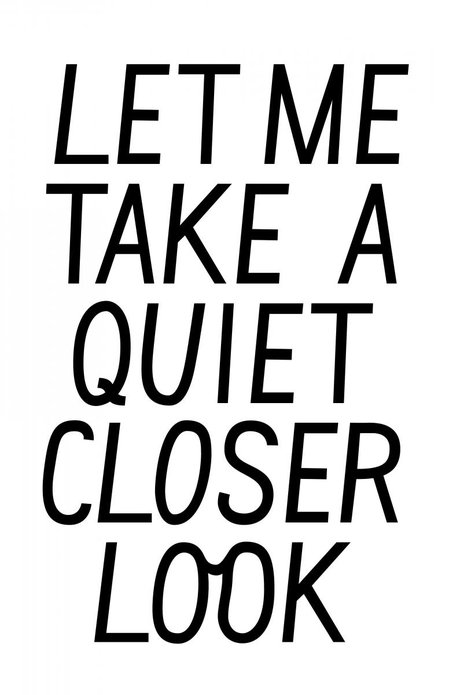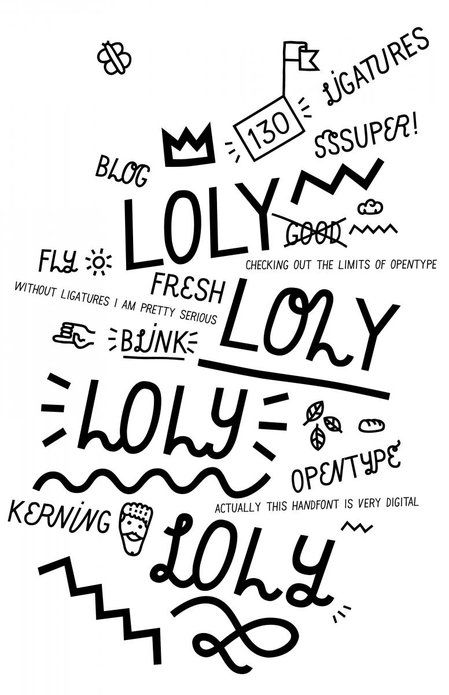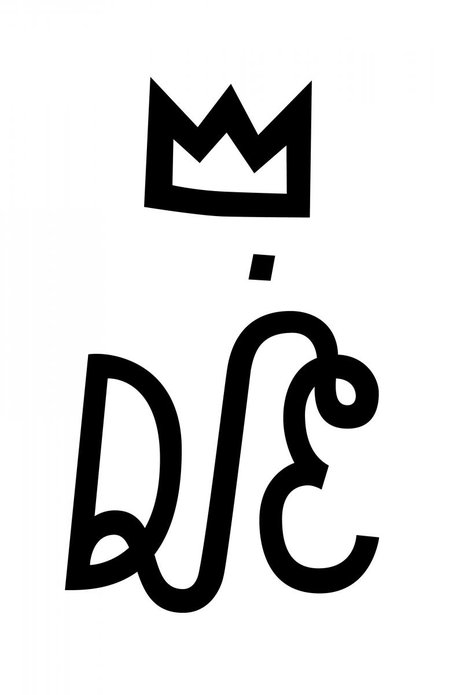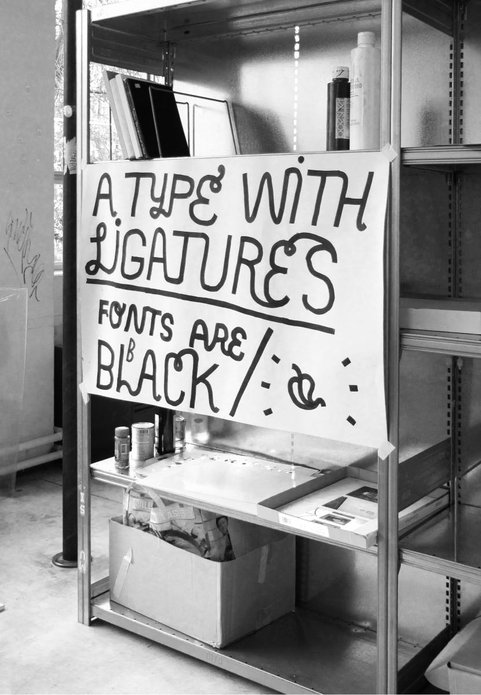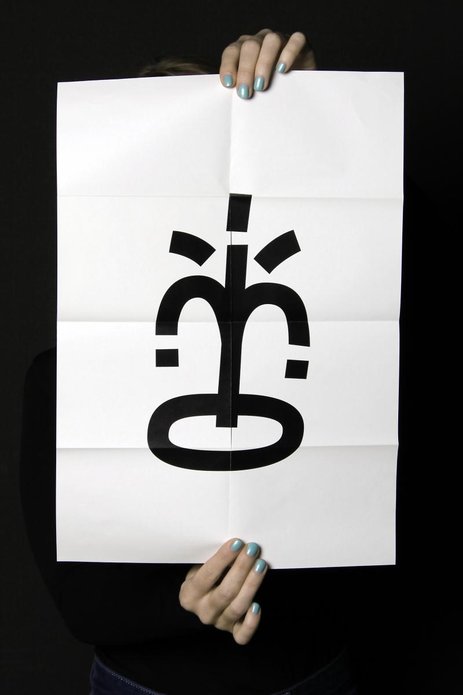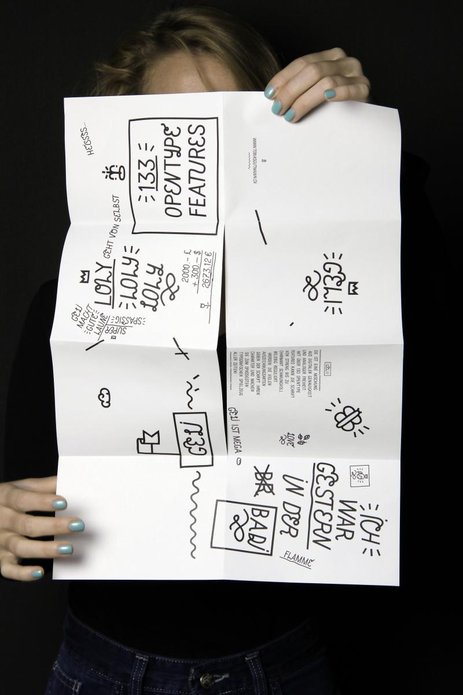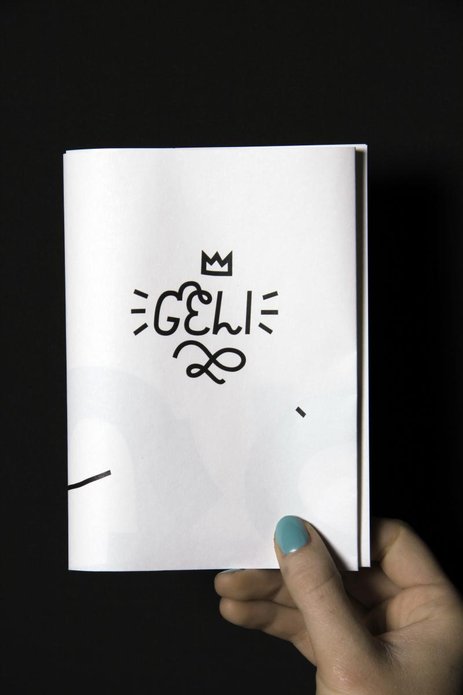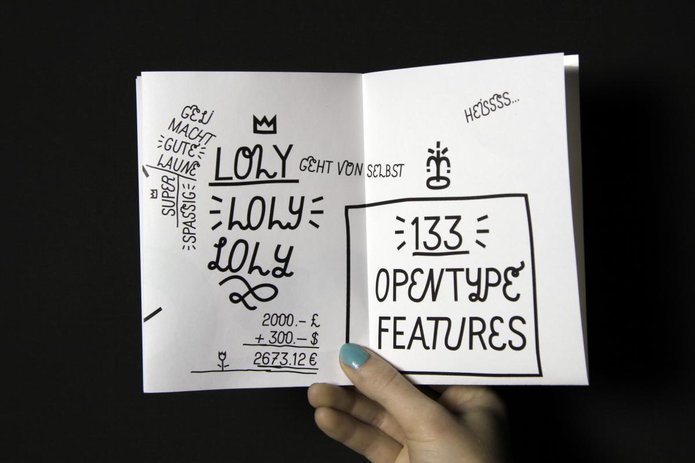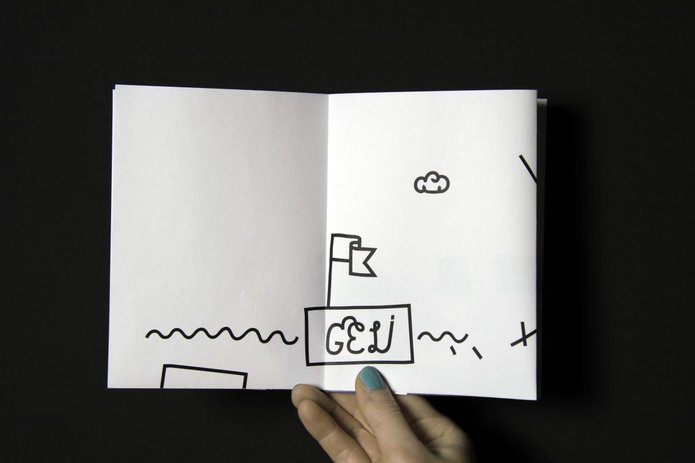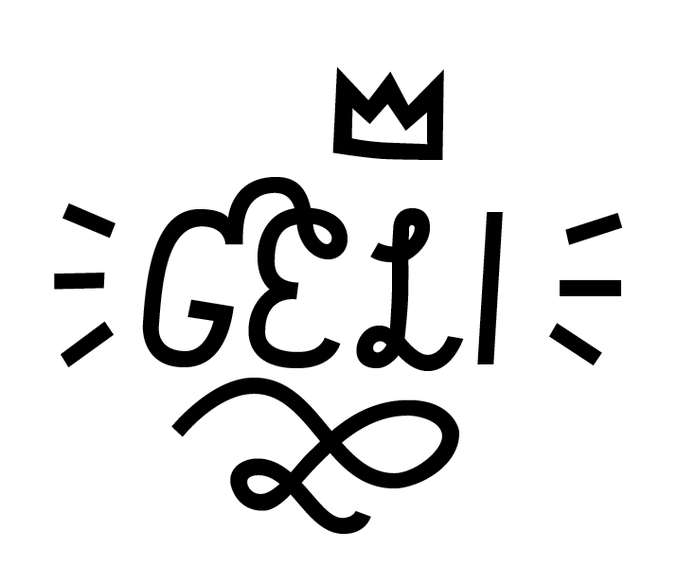
My aim was to develop a handwriting font which works digitally. After drawing the font by hand it was digitized. In this process the glyphs were simplified to give them a digital esthetic. It was important that they were not just an imitation of handwriting. More than 130 ligatures, swashes and alternate glyphs give the font a wide variety of looks. Most of the OpenType features can be used directly with the keyboard. While writing, this font dances, blinks and even draws.
The result of over a year’s work is a powerful corporate font with a wide range to play with.
GELI by Tobias Gutmann
GELI ist eine Mischung aus digitaler Genauigkeit und analoger Freiheit. Mit über 130 Ligaturen, Swashes und ...von Boris am 03.12.2010
ich liebe diesen font. er macht glücklich. ist frech. macht einfach spaß. wir sind sehr glücklich diesen in unserem fontlabel volcano-type zu haben. grüße, lars